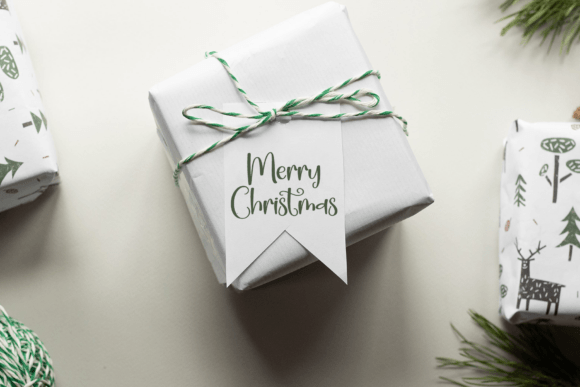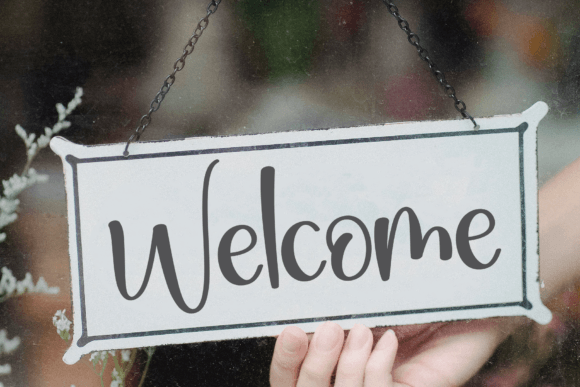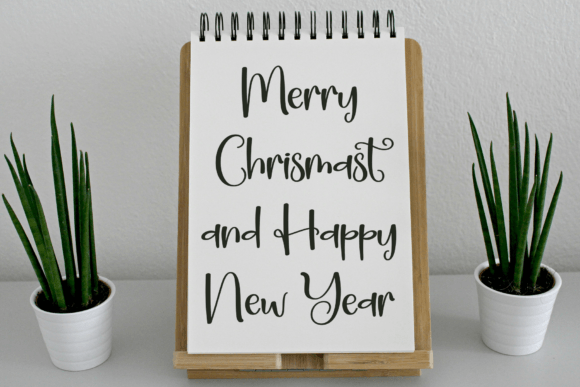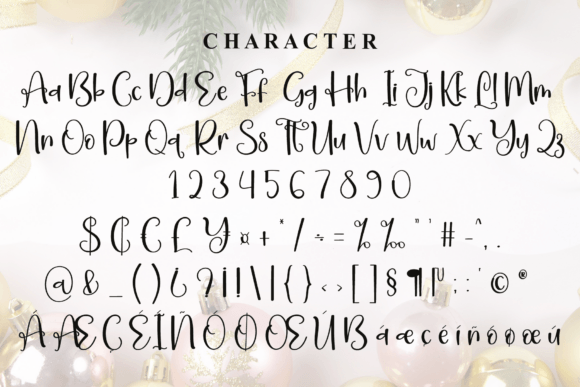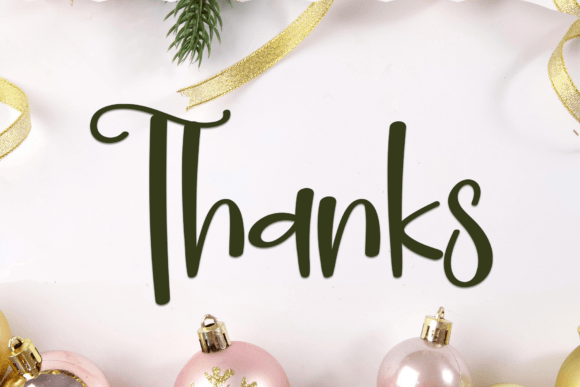
The Magic of Christmas Font: A Designer’s Delight
I still remember the holiday season when I was working on a branding project for a cozy little bakery. My client wanted a font that would evoke the warmth and magic of Christmas, but I was struggling to find the perfect one. That’s when I stumbled upon Christmas Font, a charming handwritten font that stole my heart. Its smooth strokes and organic lines instantly transported me to a winter wonderland, and I knew I had found the perfect fit for my project.
An Honest Review of Christmas Font
- ✨ Heartfelt perfection: Christmas Font exudes a sense of warmth and coziness, making it perfect for holiday-themed designs.
- ✅ Smooth strokes and organic lines: The font’s smooth strokes and organic lines create a relaxed atmosphere, ideal for a variety of design projects.
- 🎉 Versatility: Christmas Font can be used for branding, invitations, social media graphics, and more.
While Christmas Font is a stunning font, there are a few things to keep in mind:
- 🤔 Limited use cases for formal designs: Due to its playful and handwritten nature, Christmas Font might not be the best fit for formal or corporate designs.
- ⚠️ Glyph limitations: While Christmas Font has a range of glyphs and stylistic alternates, it might not have every special character or symbol you need.
The Backstory of Christmas Font
Christmas Font was designed by a talented type designer who wanted to capture the magic and warmth of the holiday season. Inspired by traditional holiday cards and winter landscapes, the designer created a font that would evoke a sense of coziness and festivity. The result is a charming handwritten font that has become a favorite among designers and crafters.
| Font Name | Christmas Font |
| Author | KC Production |
Christmas Font is a charming handwritten font filled with a sense of heartfelt perfection, perfect for holiday-themed designs and projects.
While Christmas Font is a beautiful font, it might not be the best fit for formal or corporate designs due to its playful and handwritten nature.